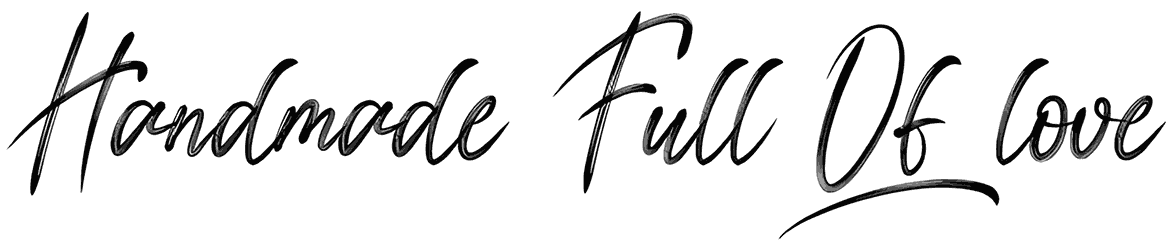
Handmade Full Of Love Font
The Handmade Full Of Love font is a lovely brush font that looks like it was actually crafted by hand. Whether you’re making invitations, greeting cards, posters, or anything else, this font will let you express your individuality and creativity.